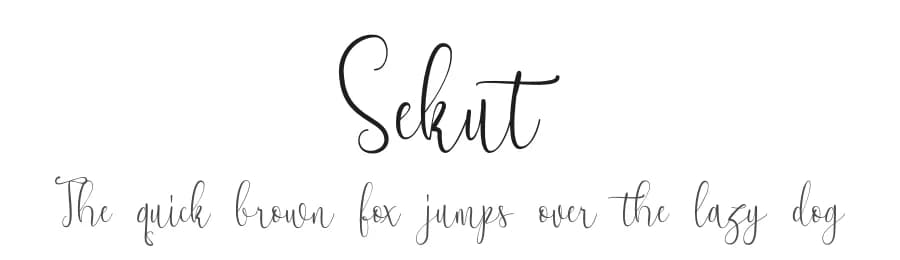
About Sekut Font
Sekut Specifications
Sekut supports 173 languages.
Sekut Font is a script font that shines as a display or heading face. Pair it with a clean sans-serif or serif font for body text β the contrast creates a clear hierarchy while the two styles stay balanced and easy to read.
Sekut Font
by Niki Studio